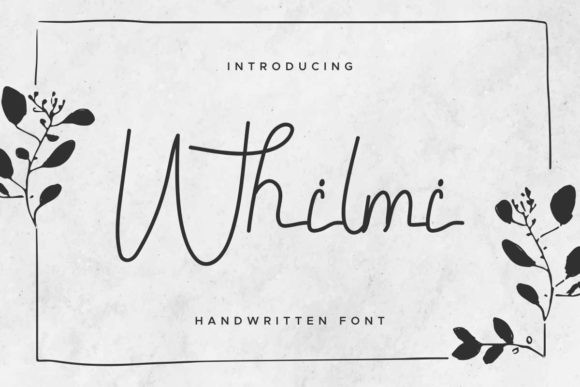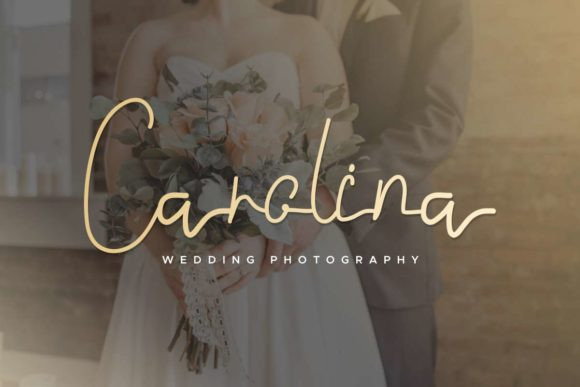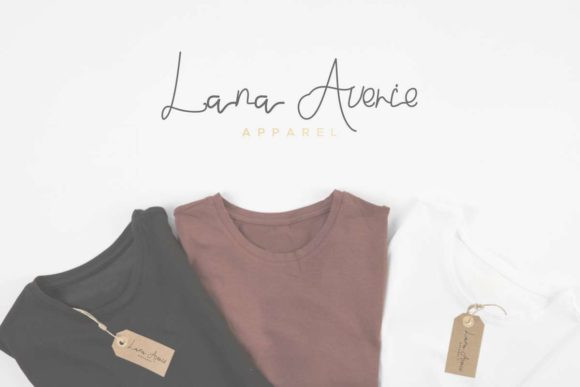
Whilmi Font
Whilmi is a magical handwritten font carefully created with a touch of elegance. This is a beautiful combination of timeless elegance and authentic calligraphy. It features an incredibly classic style, while still keeping a friendly feel. Whilmi is the perfect font for making original and outstanding designs.